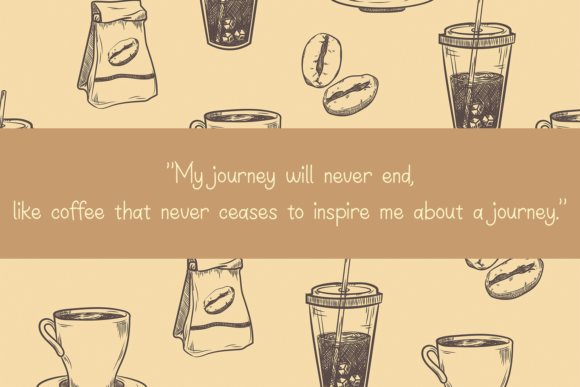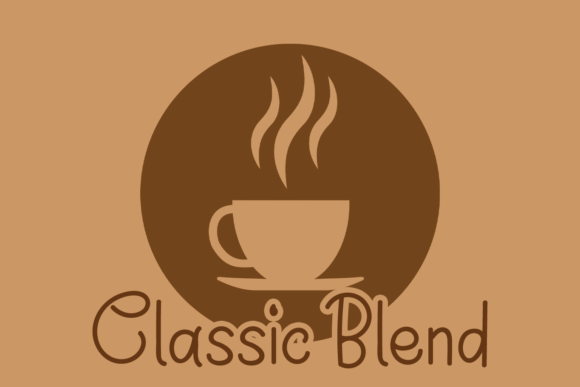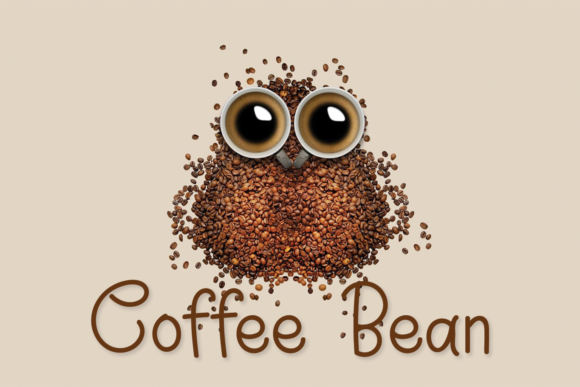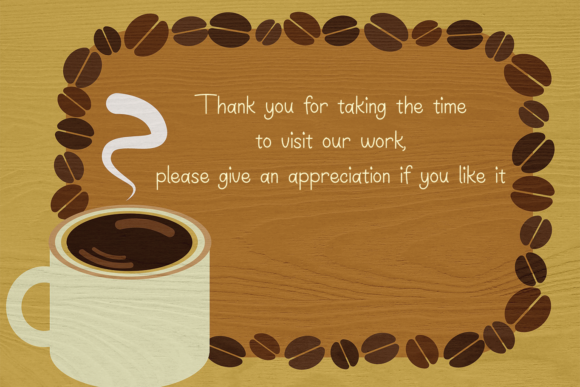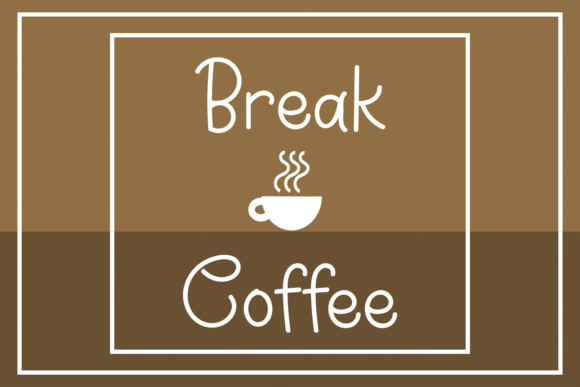
The Ultimate Guide to Break Coffee Font: A Designer’s New Best Friend
I’ll never forget the time I was working on a branding project for a trendy coffee shop. I had spent hours perfecting the logo design, but something was off. The font I had chosen just didn’t feel right – it was too bold, too generic, and completely lacked personality. That’s when I stumbled upon Break Coffee Font, and let me tell you, it was love at first sight! 💕
Break Coffee is a stylish and delicate handwritten font that has a clean, thin, and smooth vibe. It’s perfect for adding a touch of elegance and sophistication to any design. In this article, I’ll share my honest review of Break Coffee Font, provide a step-by-step guide on how to use it on different platforms, and explore similar fonts that you might love.
My Honest Review of Break Coffee Font
- 💫 Extremely versatile and works well for a variety of design projects, from branding and packaging to social media graphics and invitations.
- ✅ Beautifully crafted with a unique and elegant handwritten style that adds a touch of sophistication to any design.
- 🎉 Supports OpenType features, glyphs, and stylistic alternates, making it easy to customize and experiment with different looks.
- 🔥 Clean and smooth lines that make it perfect for both digital and print designs.
- ⚠️ Some users might find the font a bit too delicate for certain design projects, such as posters or billboards that require bold and eye-catching typography.
- 🤔 Limited availability of condensed or expanded versions, which might limit its use in certain design scenarios.
The Story Behind Break Coffee Font
Break Coffee Font was designed by a talented type designer who wanted to create a font that would capture the essence of a perfect cup of coffee. The designer spent countless hours perfecting the font, experimenting with different letterforms and styles until they landed on the perfect combination. The result is a font that is both elegant and approachable, perfect for designs that require a touch of sophistication and personality.
| Font Name | Break Coffee Font |
| Author | erik studio |
| What is Break Coffee Font? | Break Coffee Font is a stylish and delicate handwritten font with a clean, thin, and smooth vibe. |
| Can I use Break Coffee Font for digital and print designs? | Yes, Break Coffee Font is perfect for both digital and print designs, and its clean and smooth lines make it suitable for a wide range of applications. |
| Does Break Coffee Font support OpenType features? | Yes, Break Coffee Font supports OpenType features, glyphs, and stylistic alternates, making it easy to customize and experiment with different looks. |